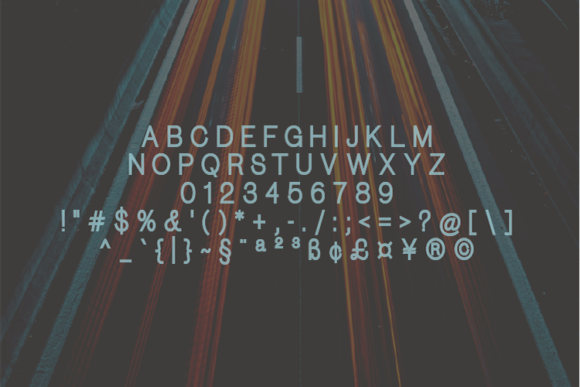
Discover the Delightful Dervine Font: A Perfect Sans Serif for Designers and Crafters
In the vast world of typography, finding the perfect font that balances readability, charm, and versatility can be a daunting task. However, for those on the hunt for a sans serif font that ticks all these boxes and more, look no further than Dervine. This beautifully handcrafted font is designed to capture the hearts of designers and crafters alike, offering a unique blend of casual elegance and down-to-earth charm.
The Essence of Dervine: A Sans Serif with a Difference
Dervine stands out in the crowded font landscape due to its meticulous design. Each letterform is carefully crafted to ensure that the font exudes a sense of warmth and approachability. Unlike many sans serif fonts that can come off as cold or overly simplistic, Dervine manages to strike a perfect balance between modernity and friendliness. Its casual charm makes it an excellent choice for a wide range of design projects, from branding and advertising to digital content and crafting.
Readability and Versatility: Dervine’s Key Strengths
One of the standout features of Dervine is its exceptional readability. The font’s designers have paid close attention to letter spacing, weight, and form to ensure that Dervine remains clear and legible, even at smaller sizes. This makes it an ideal choice for body text, as well as for headlines and titles where impact and clarity are crucial.
Versatility is another area where Dervine truly shines. Whether you’re working on a project that demands a professional and sleek look or something more relaxed and playful, Dervine adapts effortlessly. Its ability to blend seamlessly into various contexts, from digital platforms to print materials, makes it a valuable addition to any designer’s or crafter’s toolkit.
Using Dervine in Design Projects
Dervine’s adaptability means it can be used in a multitude of design applications. Here are a few ideas where Dervine can make a significant impact:
- Branding and Logos: Dervine’s unique charm and approachable feel make it an excellent choice for logos and brand identities looking to convey a sense of friendliness and approachability.
- Web Design: For digital projects, Dervine’s readability and modern aesthetic ensure that it stands out on busy backgrounds and performs well as a standalone headline.
- Print Materials: From brochures and flyers to posters and business cards, Dervine brings a touch of elegance and professionalism to any print project.
- Crafting and DIY Projects: For crafters, Dervine can add a personalized and sophisticated touch to handmade cards, journals, and other craft projects.
Why Dervine Stands Out
In a sea of fonts, Dervine manages to stand out for several reasons:
- Handcrafted with Love: The attention to detail in Dervine’s design is evident, showcasing a level of care and craftsmanship that is rare in today’s digital fonts.
- Unique yet Versatile: Dervine strikes a perfect balance between uniqueness and versatility, making it suitable for a wide array of projects.
- Readable and Friendly: Its exceptional readability and friendly demeanor make Dervine a joy to work with, enhancing the overall aesthetic of any project.
Dervine is more than just a font; it’s a design companion that can elevate your projects with its casual charm, readability, and versatility. Whether you’re a professional designer or a crafter looking to add a touch of sophistication to your work, Dervine is sure to become a true favorite. Its ability to shine in any context, from digital screens to print materials, makes it a valuable asset for anyone looking to enhance their design work. So, if you’re on the lookout for a sans serif font that combines modernity with a down-to-earth feel, Dervine is undoubtedly worth exploring.